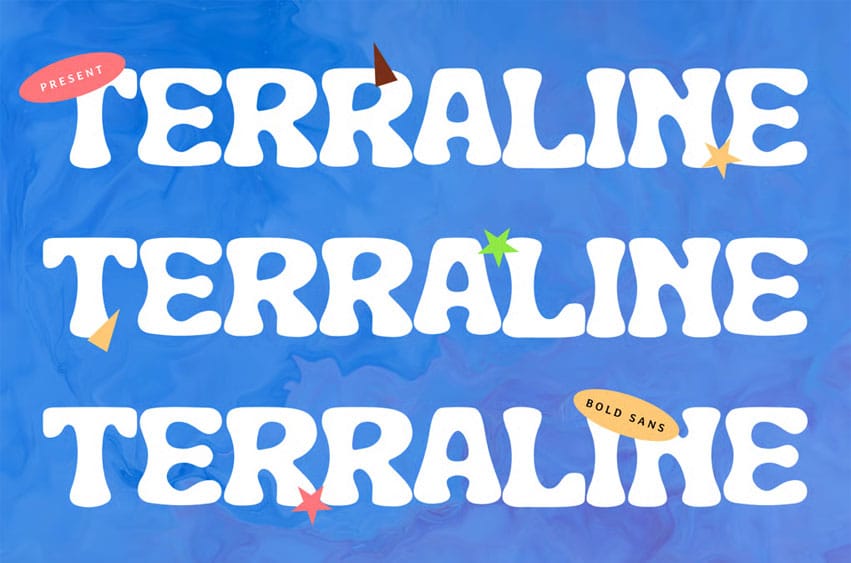
Terraline Font is a bold, bubbly display font with soft curves and playful character shapes, ideal for kids’ designs, branding, posters, and cheerful digital graphics.
Its quirky, retro-inspired look adds charm and personality, making your creative projects stand out with a fun, eye-catching visual identity.